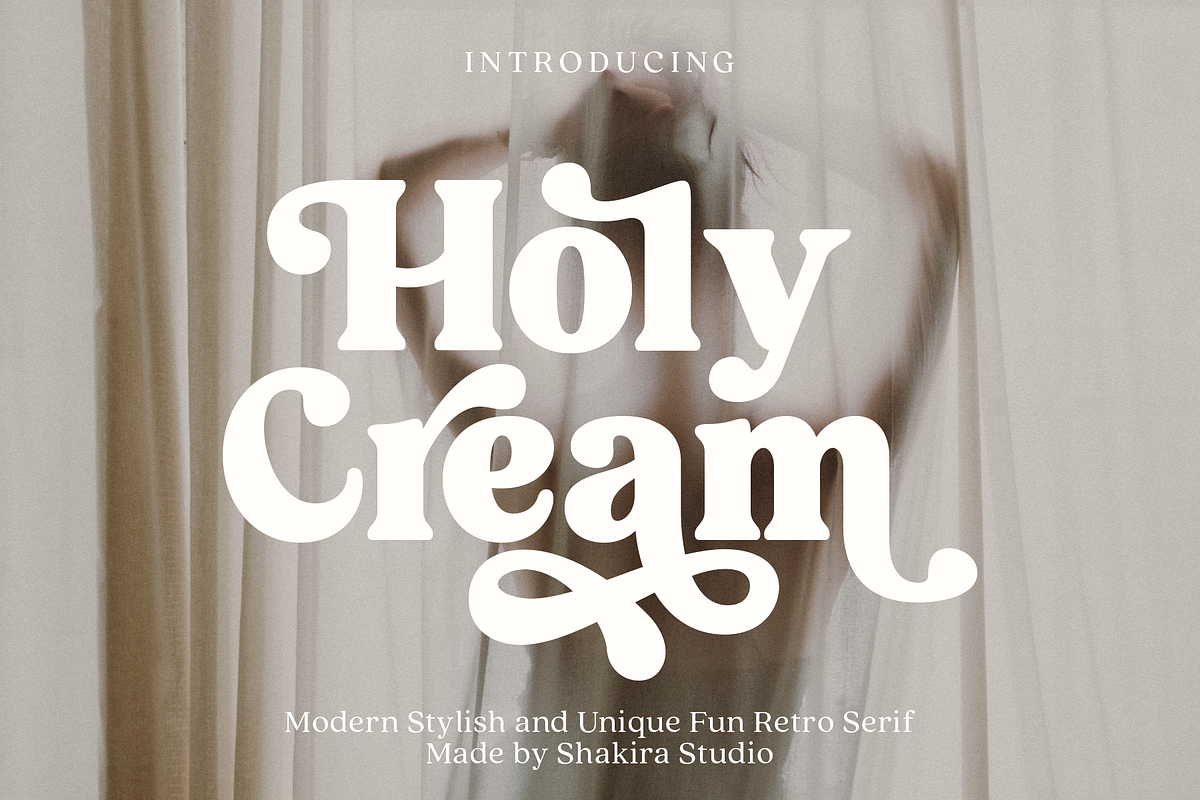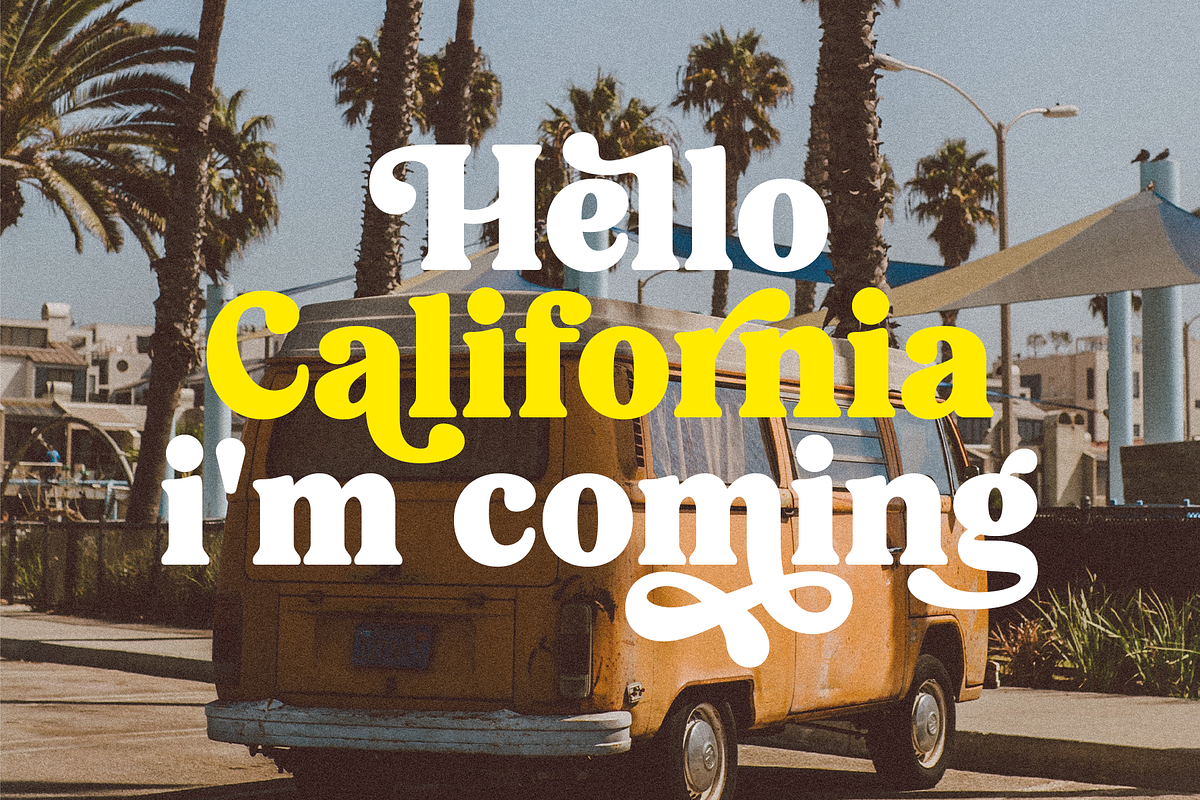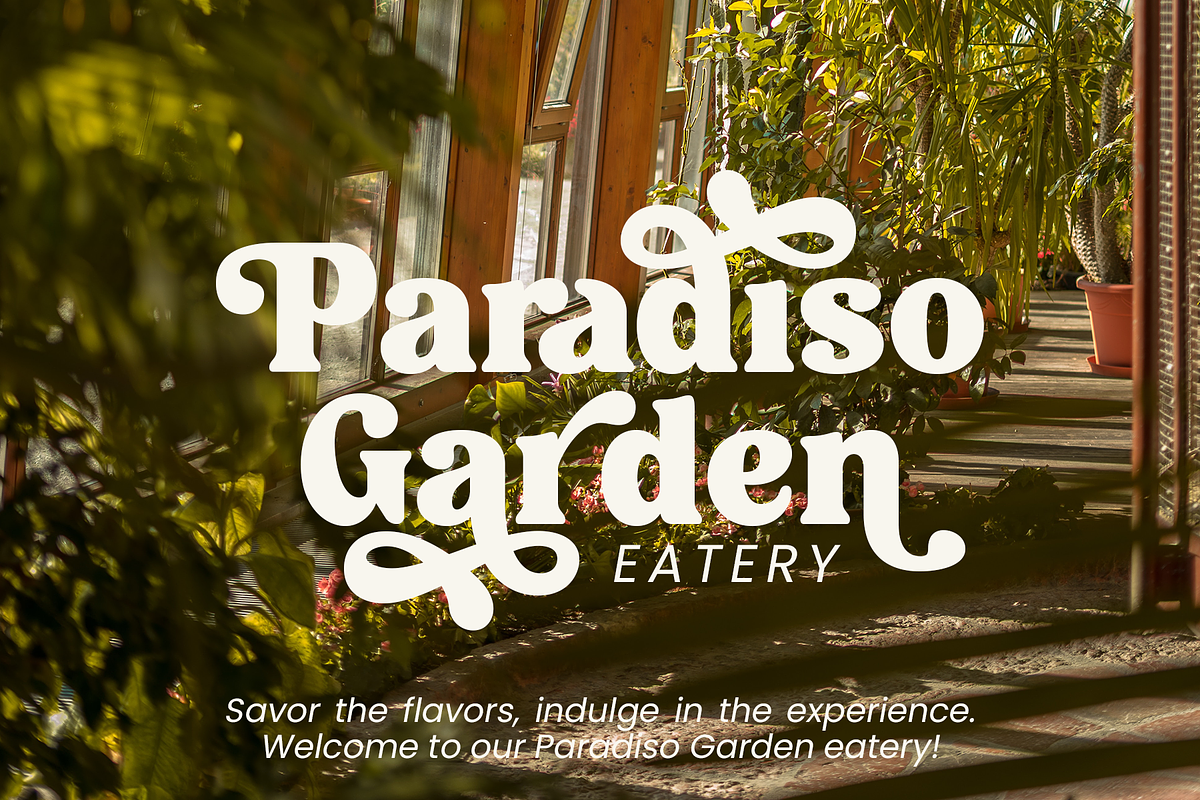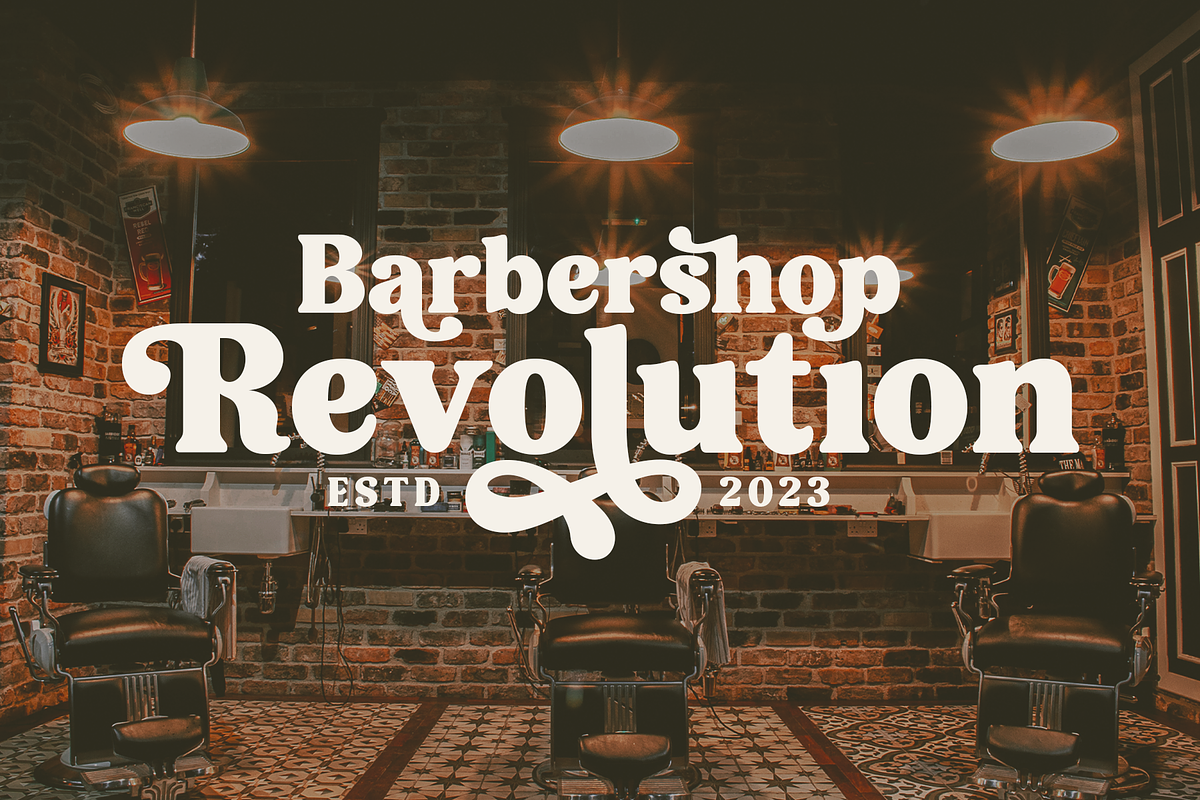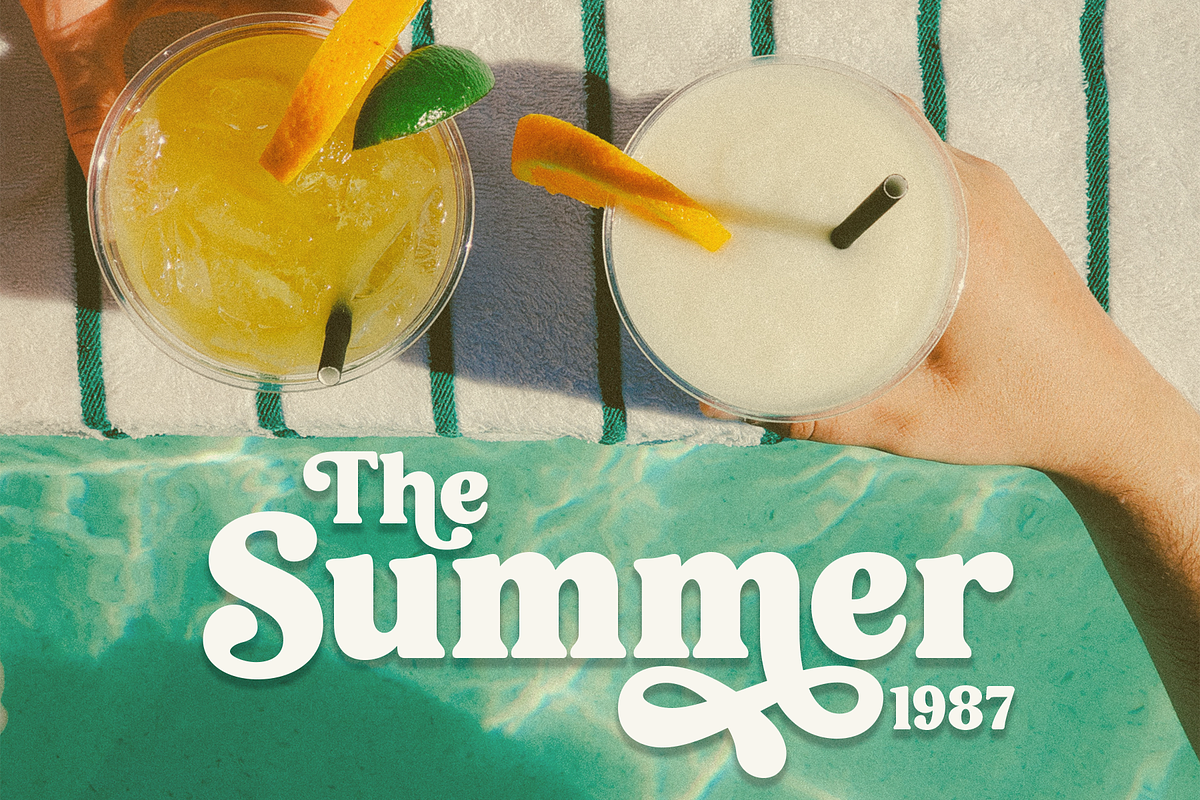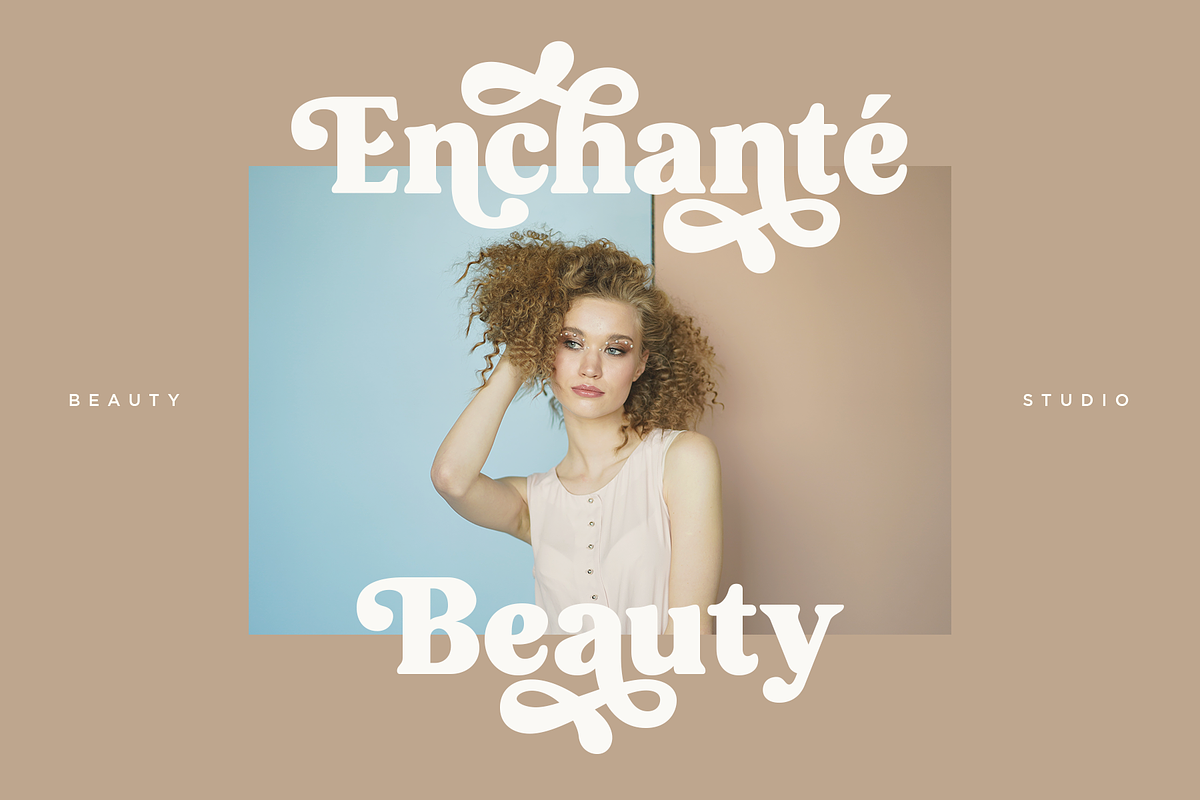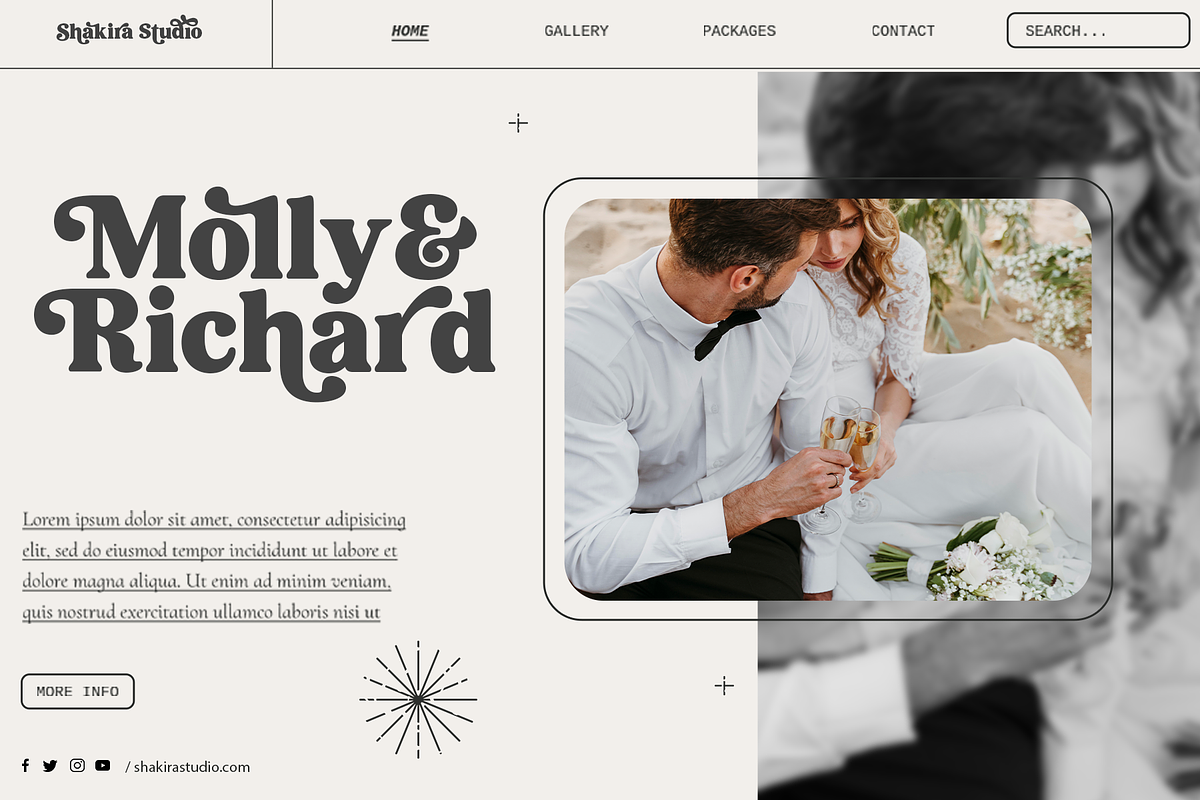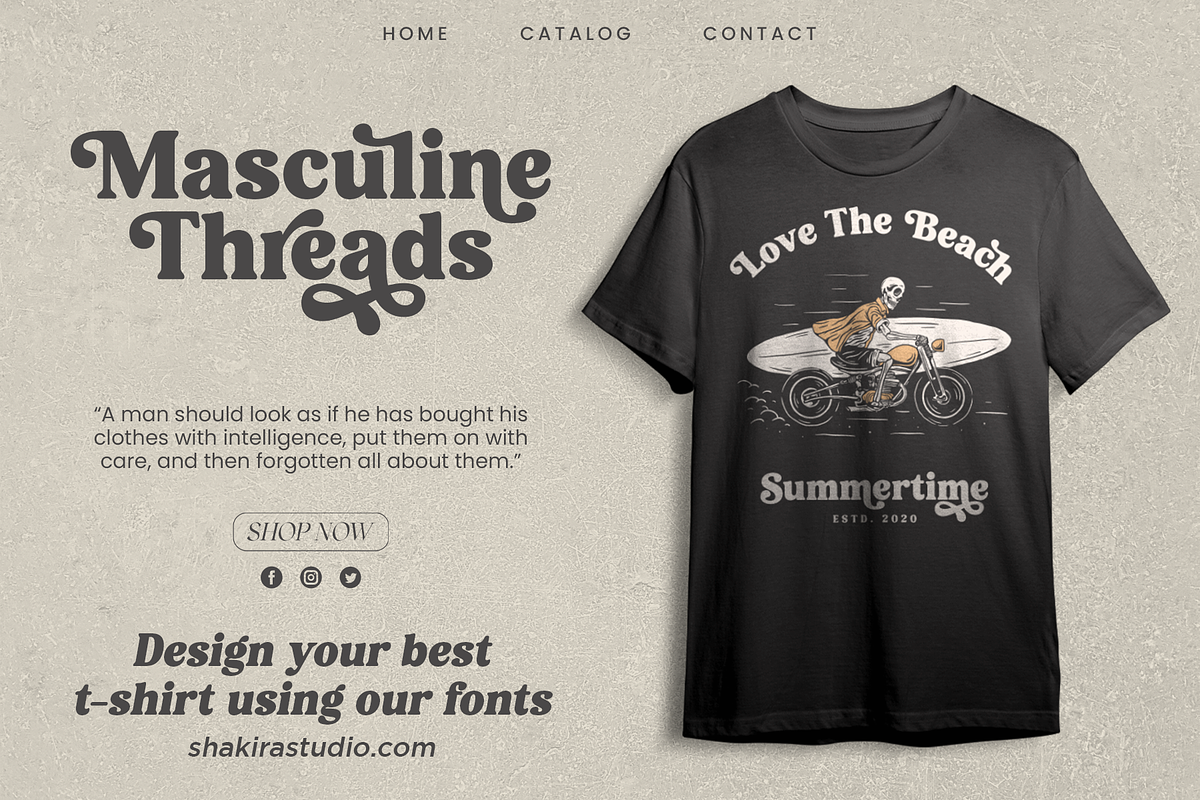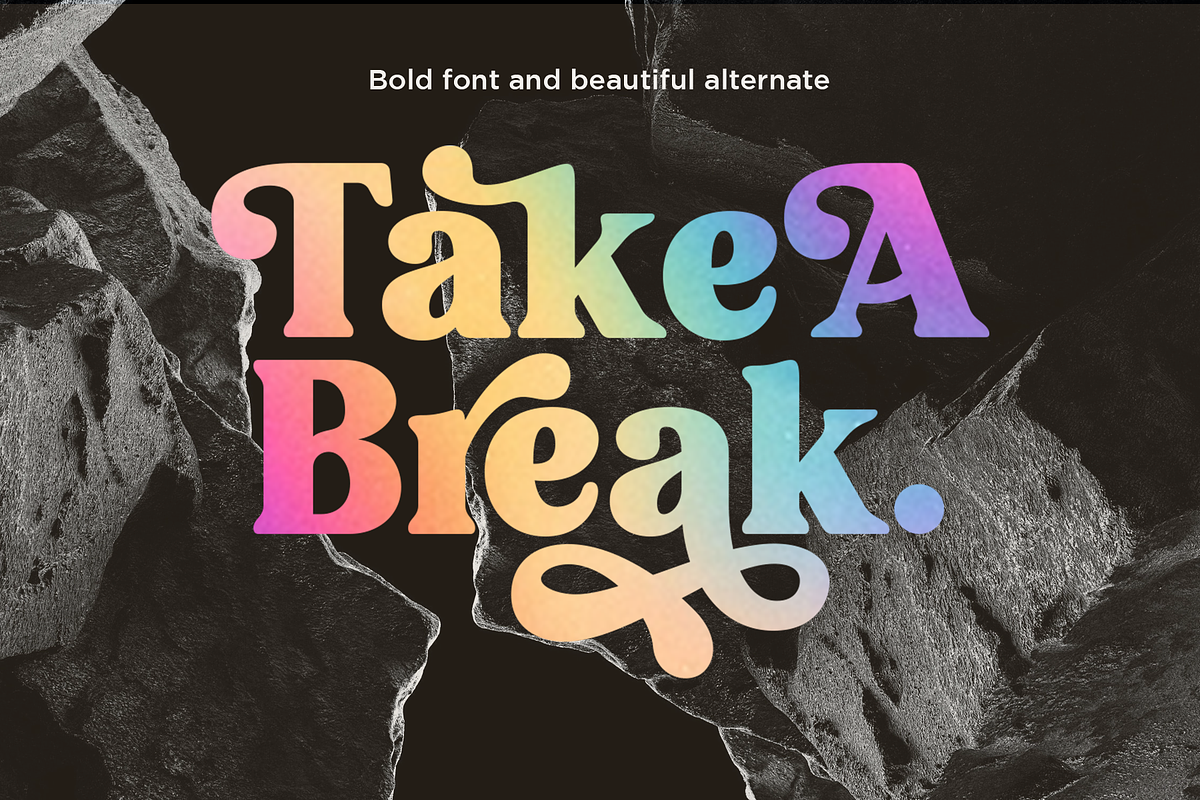
Holy Cream - Retro Serif Font
Say hello to new serif font, Holy Cream!
Holy Cream is a font that takes you back to the trendy retro era. With a classic display serif style but with a modern feel, Holy Cream emphasizes the uniqueness and elegance of each letter. The bold, contoured serif design provides a strong vintage touch, while stylish and quirky alternatives add a charming creative dimension.
When using Holy Cream, you will feel a touch of fun nostalgia, but also explore ongoing design trends at the same time. Whether you want to feature your headline in a print ad, poster, or other graphic design, Holy Cream delivers a trendy, retro vibe that grabs attention with its ability to adapt to a variety of visual styles.
So, with Holy Cream, make your design speak in a stylish and unique retro style, captivate the audience and make an unforgettable impression.
- Opentype features ( ligature, alternate )
Multilingual character supports : (Afrikaans, Albanian, Catalan, Croatian, Czech, Danish, Dutch, English, Estonian, Finnish, French, German, Hungarian, Icelandic, Italian, Lithuanian, Maltese, Norwegian, Polish, Portuguese, Slovenian, Spanish, Swedish, Turkish, Zulu)